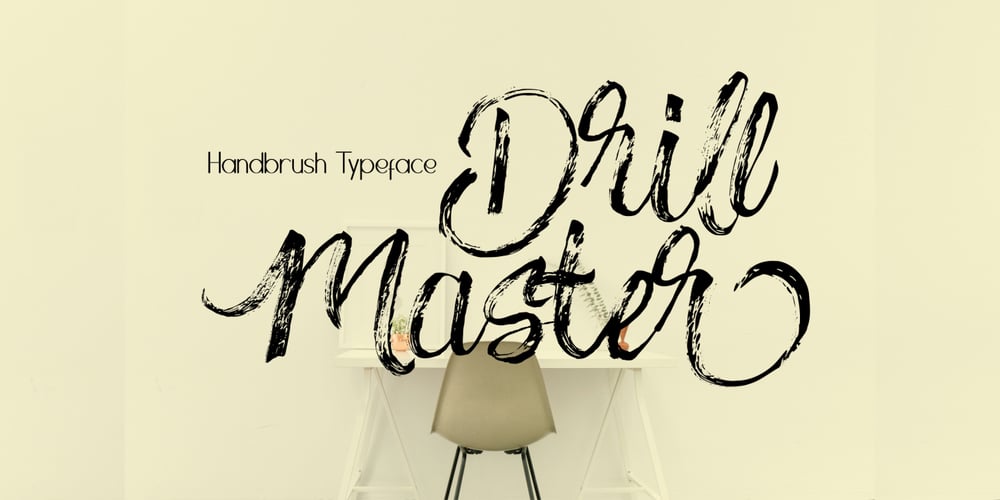
Drillmaster
Drillmaster font
Drillmaster Font Family was designed by Syukur Setiyadi and published by SSI.Scraps. Drillmaster contains 1 styles and family package options. Drillmaster is a natural brush font with gorgeous texture and uniqueness, adding authentic charm on your design. It has a complete offering of characters and includes many ligatures.